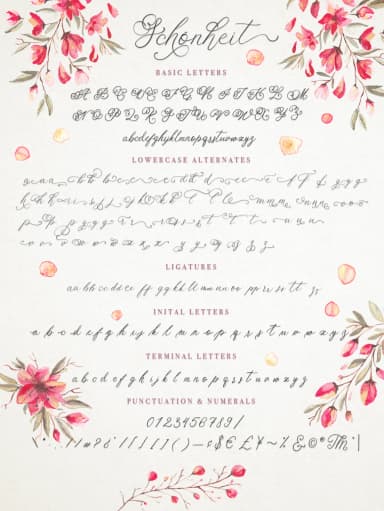
Schönheit Font by Red Ink is a refined handwritten script that captures the elegance inherent in its German name, meaning "beautiful woman." The typeface merges delicate letterforms with purposeful structure, delivering calligraphic sophistication that remains highly legible across applications. Red Ink has meticulously engineered every character, creating a font that shines in wedding invitation suites, boutique skincare packaging, personalized gift labels, and DIY craft projects where authentic hand-lettered appeal matters. The Schönheit Extras additions expand your creative toolkit with decorative alternates and stylistic variations that enable you to customize each design with unique flair.
Beyond its visual refinement, Schönheit adapts fluidly to both print and digital mediums without sacrificing its carefully crafted character and distinctive presence. The script's flowing strokes function seamlessly whether you're hand-lettering event graphics, designing Etsy product listings, creating luxury packaging for independent sellers, or adding decorative flair to personalized stationery suites. These design applications showcase why handwritten scripts remain essential for brands and creators seeking authentic, memorable aesthetics. The font's versatility extends across different contexts, from intimate personal projects to professional commercial work, making it a valuable addition for anyone seeking script typefaces with genuine character.
Schönheit Font is a script font that shines as a display or heading face. Pair it with a clean sans-serif or serif font for body text — the contrast creates a clear hierarchy while the two styles stay balanced and easy to read.
Schönheit Font
by Red Ink